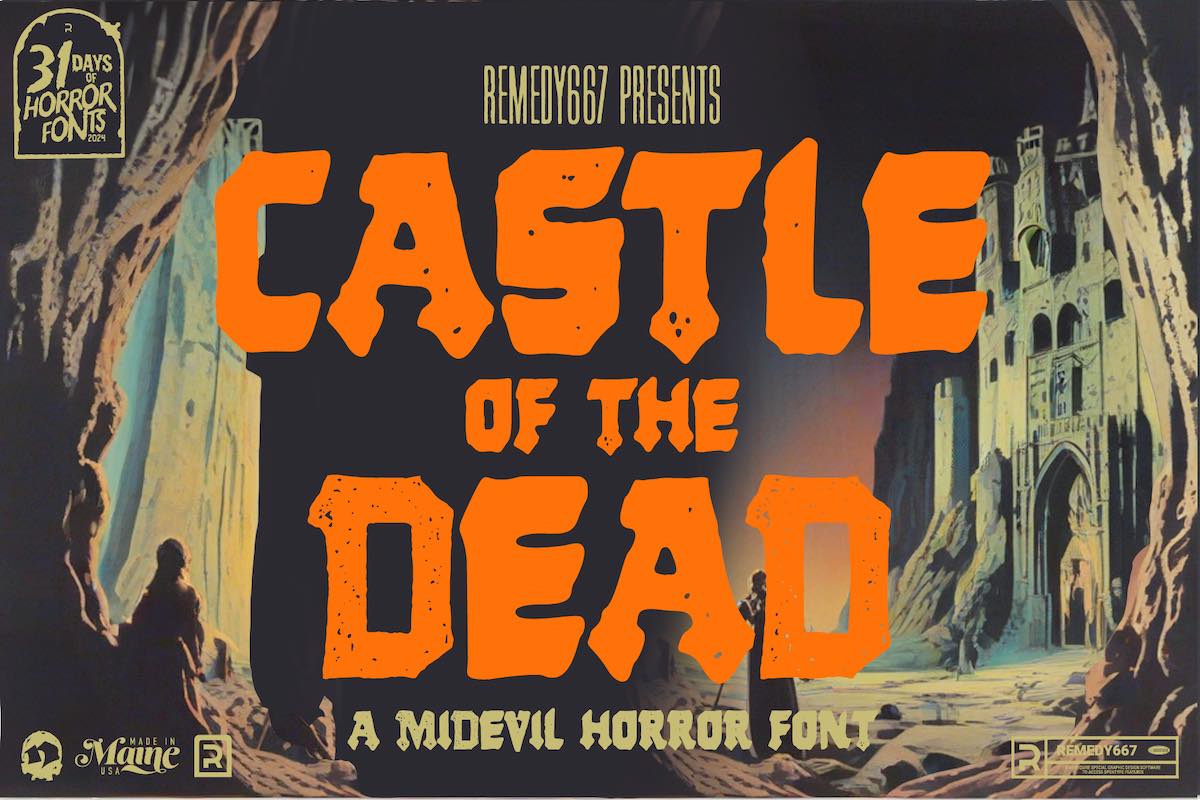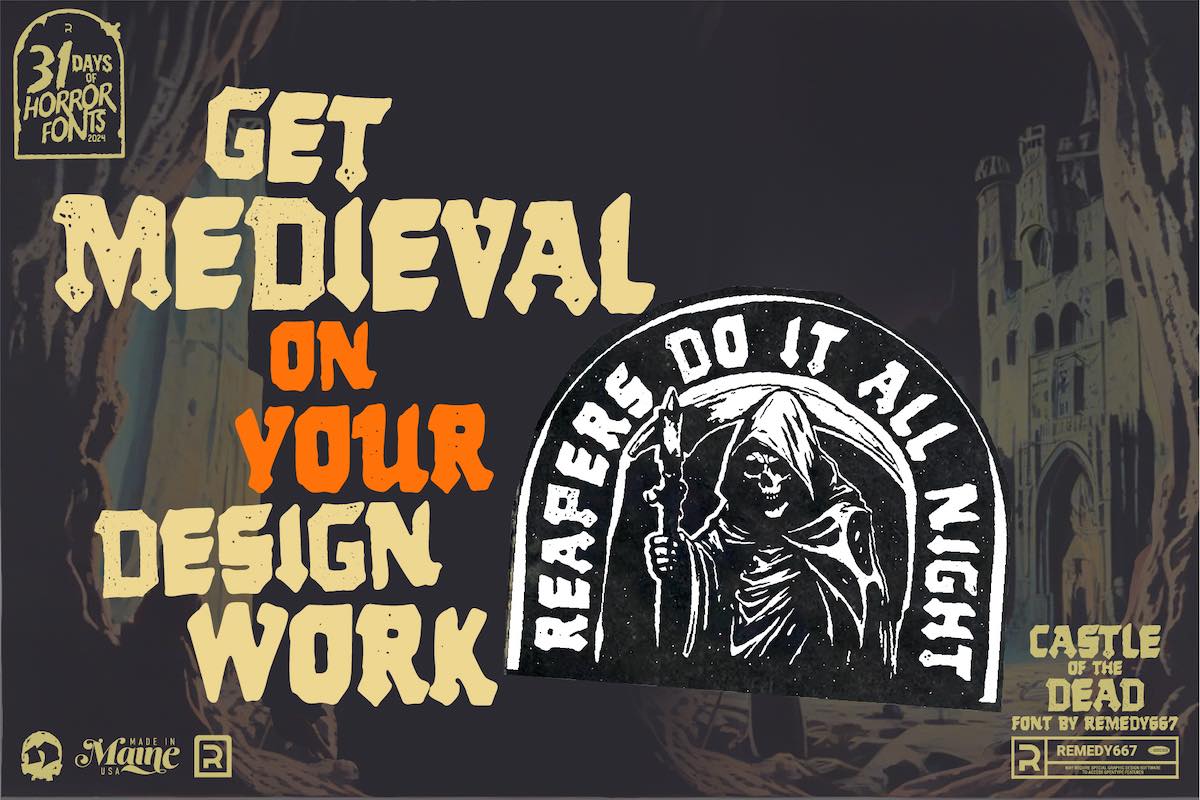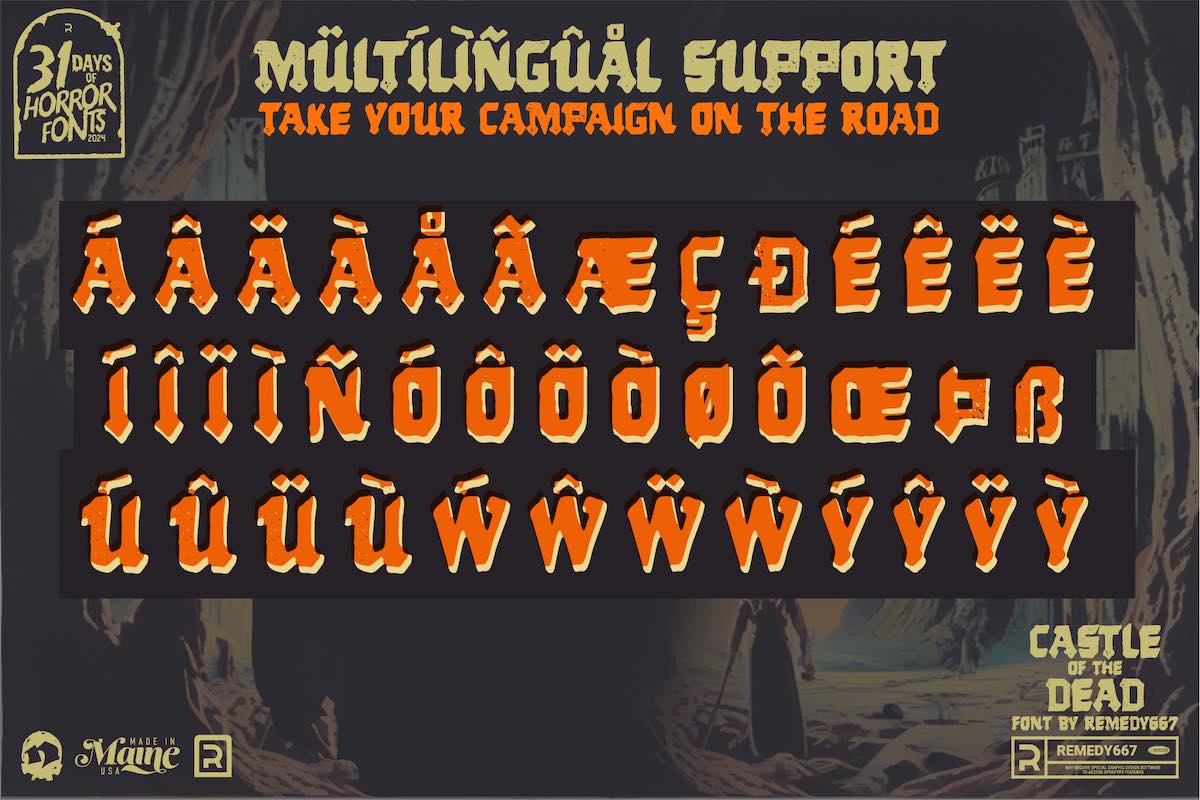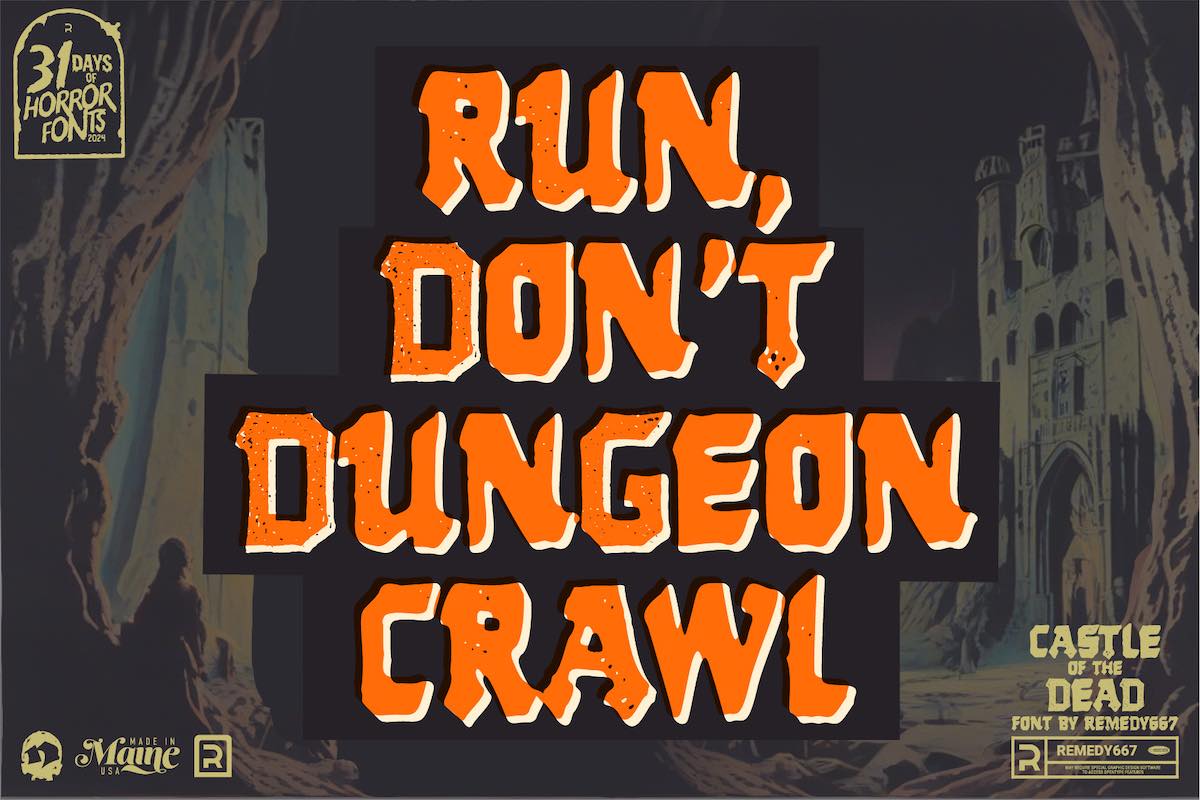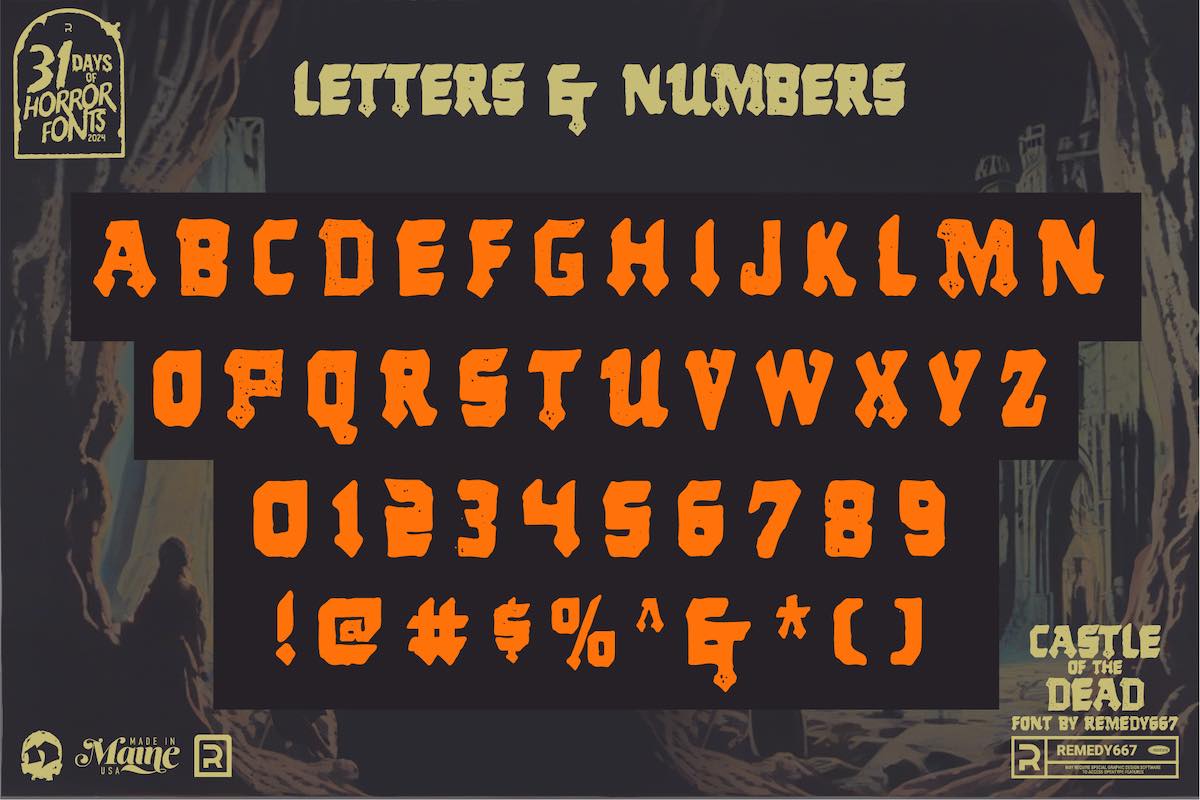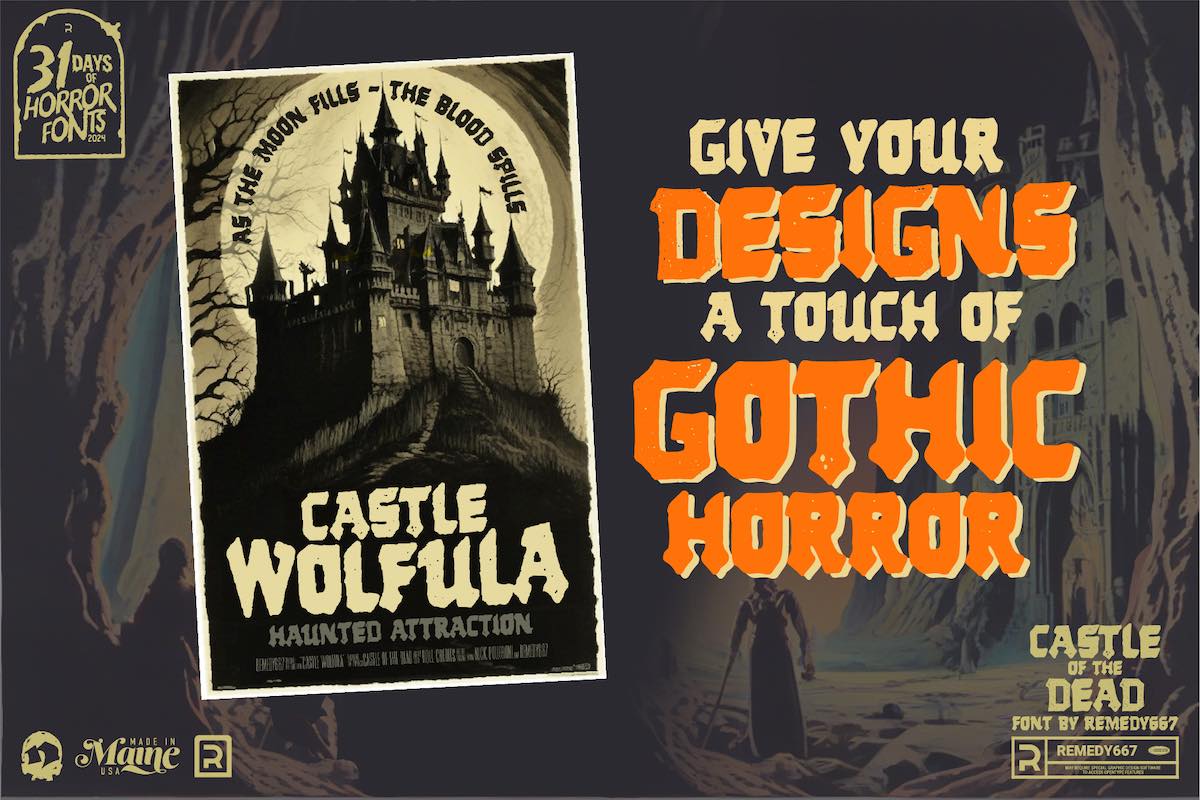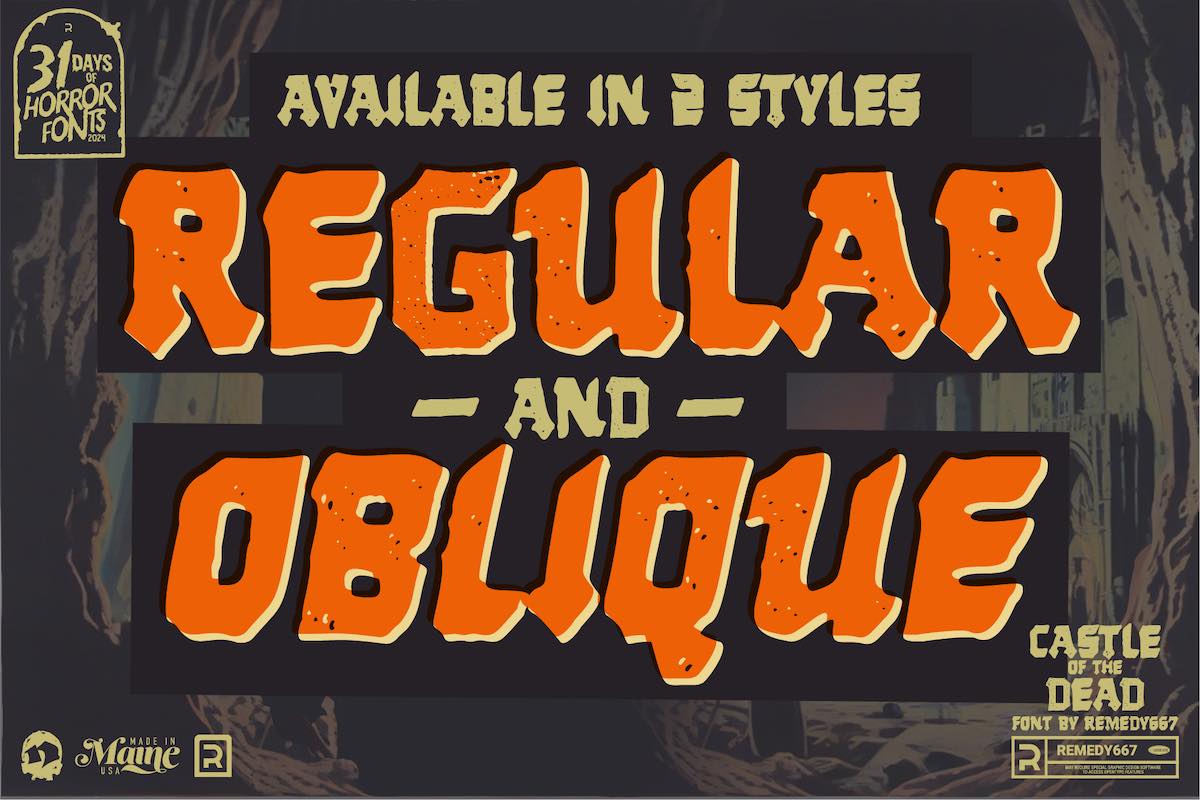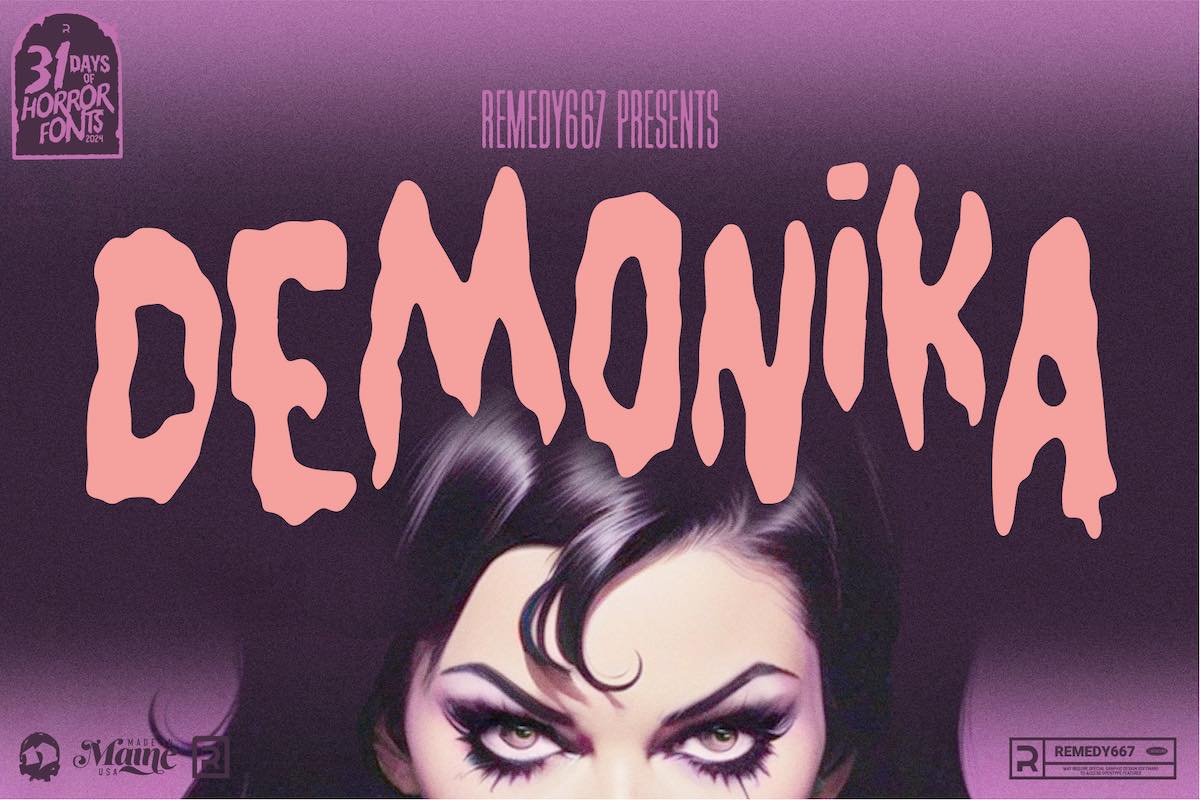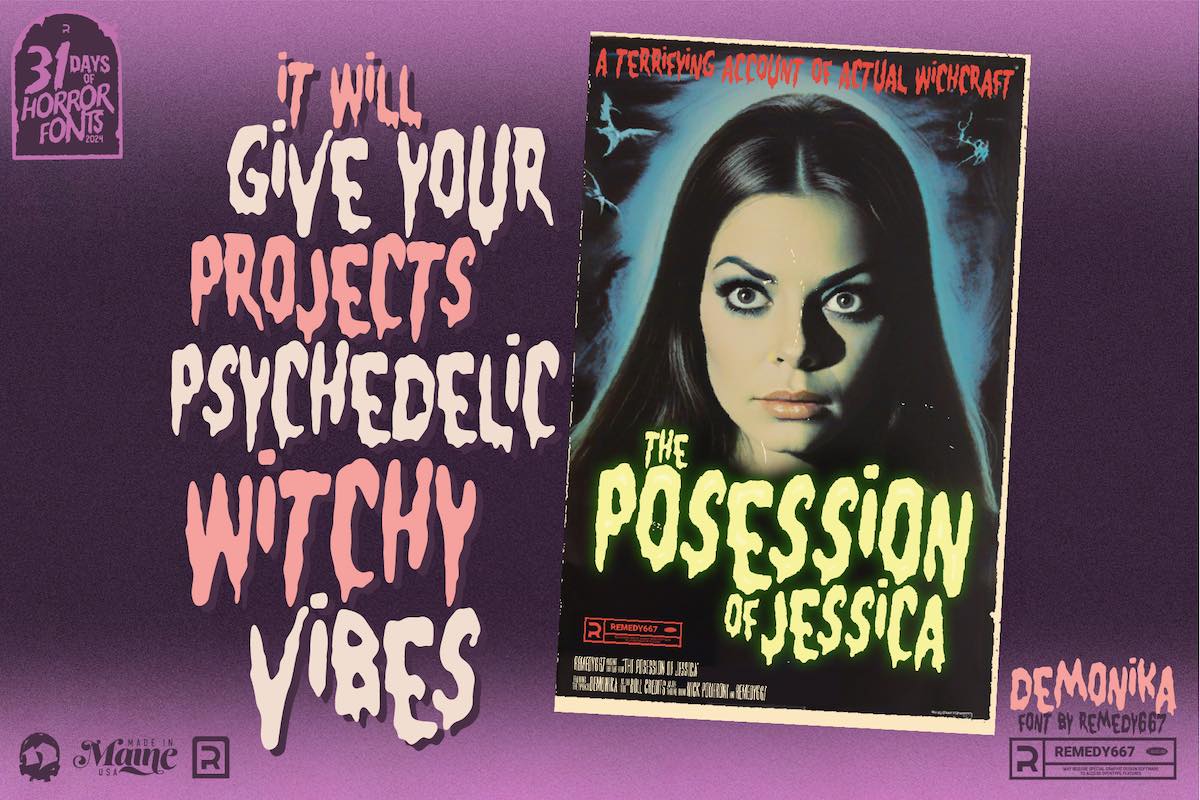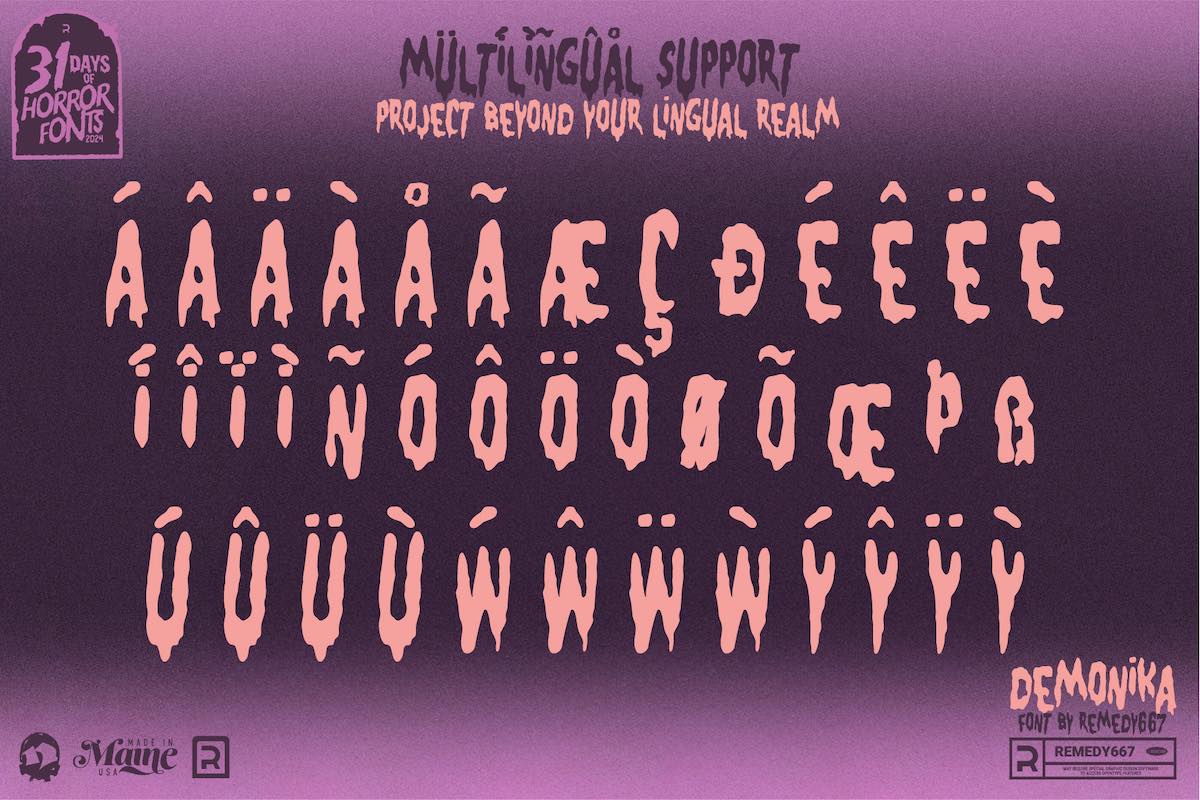
The Typefaces of Terror Collection
How do you create the absolute best collection of horror fonts anywhere?
Create tons of them, and then have a community of horror fanatics vote on them. That's exactly what our friends at Remedy667 did!
In October of 2024, Nick Polifroni designed a new font each day and posted it to Instagram. Then, followers were asked to vote by liking only their favorite fonts. The result is The Typefaces of Terror Collection—a batch of five retro-inspired horror fonts that are proven winners.
Here's a little about each font...
Castle of the Dead
A campy, medieval-inspired horror font that captures the spirit of spooky castles, cursed knights, and cobweb-filled dungeons. Perfect for projects that need a gothic touch with a playful, lighthearted edge.
Demonika
Remedy667 is based out of Maine, making this striking tribute to late 20th century horror novels like Carrie all the more authentic. With its oozing, ominous design, it's ideal for channeling the eerie nostalgia of classic paperback covers.
Haunted Vision
Looking for something with more of a mid-century flair? Haunted Vision is a geometric horror font inspired by manual lettering work done with an X-acto knife and a love of mid-century style.
Haunted Screams
Looking to emulate the iconic slasher films of the 80s and 90s? Haunted Screams is inspired by the low-budget season horror films of the era that inspired predecessors like Scream.
Spider Queen
Inspired by the creepy-crawly creature features of the 1950s and the garish horror comics of the mid-century, Spider Queen oozed with retro spookiness. Perfect for projects that call for a sticky, spine-chilling vibe with a dash of campy fun.
[BONUS] Infrequencies Demo
A classic spooky font perfect for crafting eerie paragraphs of text with a subtle, haunting vibe. Pairs beautifully with the other fonts as body text. This demo version is available exclusively through RetroSupply as a special bonus for our customers!